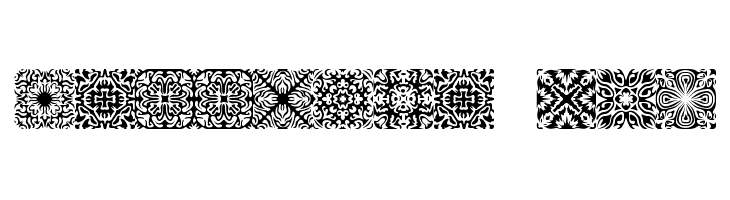
Ornamental, symmetrical tile-patterned decorative font.
A decorative symbol and shape dingbat set.
Intricate, abstract line designs with a vintage and modern aesthetic.